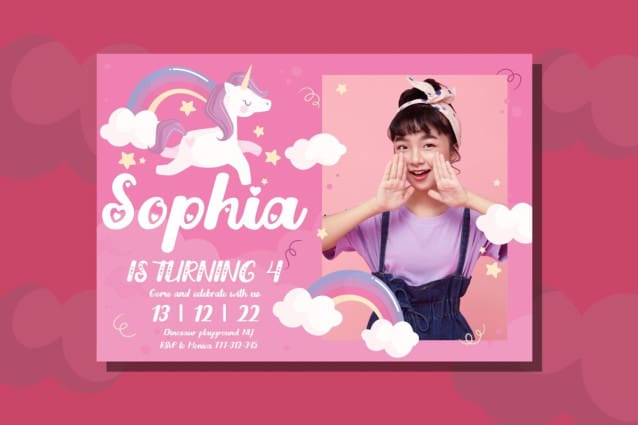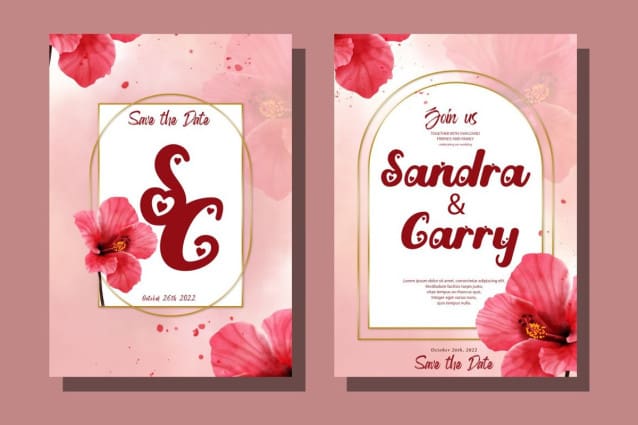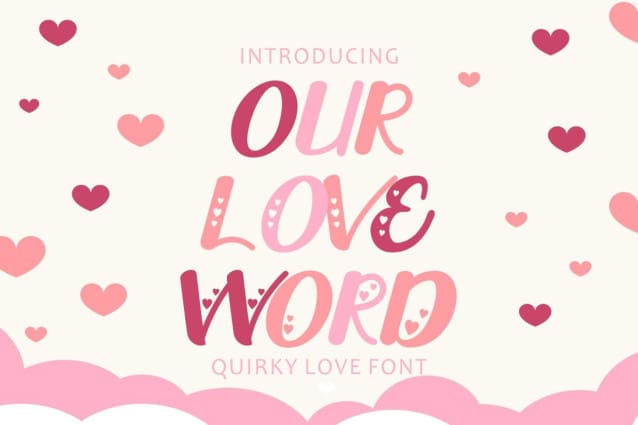
Our Love Word Font
Our Love Word – Quirky Love Font is a unique and playful font designed for those who want to add a touch of whimsy to their design projects. This font is perfect for those looking to create designs that are romantic and fun.
If you’re looking for a font that is perfect for Valentine’s Day or wedding-related projects, then Our Love Word is a great option. It would also be ideal for invitations, posters, logos, quotes, product packaging, headers, merchandise, social media posts, and greeting cards.
One of the best features of Our Love Word is its versatility. It comes with three different versions of the font, each with a different layout of the word “love”. This allows you to choose the best version of the font for your specific design needs. Additionally, the font includes uppercase and lowercase letters, as well as a variety of alternate characters and ligatures.
If you’re looking to add a touch of whimsy and romance to your design projects, then Our Love Word – Quirky Love Font is the perfect choice. With its playful design and versatile features, it’s sure to add a touch of fun to any project.
In summary, Our Love Word – Quirky Love Font is a unique and playful font that is perfect for Valentine’s Day, wedding-related projects, and a variety of other design projects. It’s versatile and comes with three different versions of the font, as well as alternate characters and ligatures. With its playful design and romantic feel, it’s sure to be a hit with anyone looking to add a touch of whimsy to their designs.